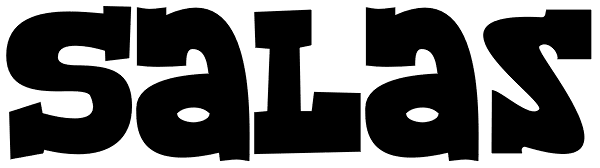
Salas
Salas is a fun, chunky, slab serif omnicase display font. It's blocky and loud, so it can scream from Posters and Headlines. Think of a clown with poor hearing making a Skype call, he's shouting, but you like it. Anyway: it has over 300 glyphs...